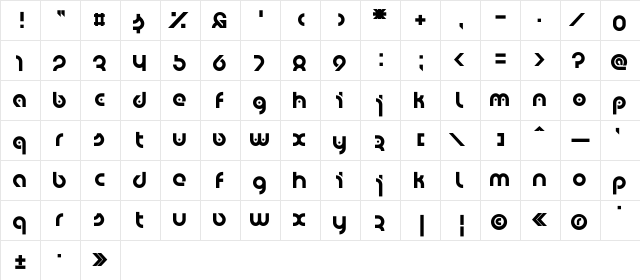
eyelevation pro eyelevation pro
| Foundry | eyelevation typography |
| Designer | Aleksander Shevchuk |
Design Context for eyelevation pro Typeface
eyelevation pro takes a measured approach to typography — its balanced proportions and neutral character make it a reliable workhorse for both digital and print work.